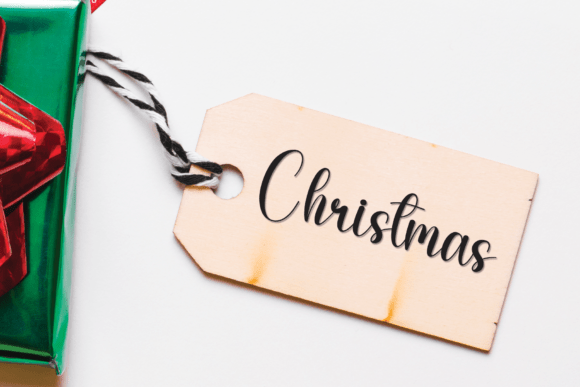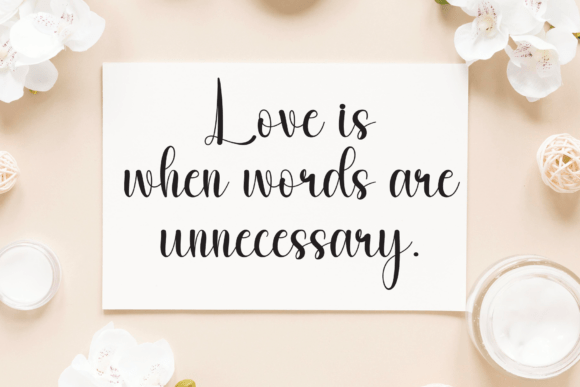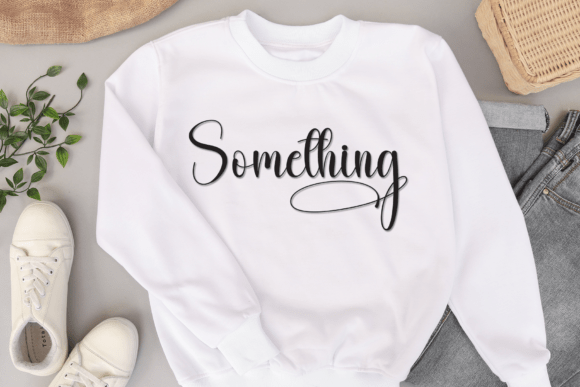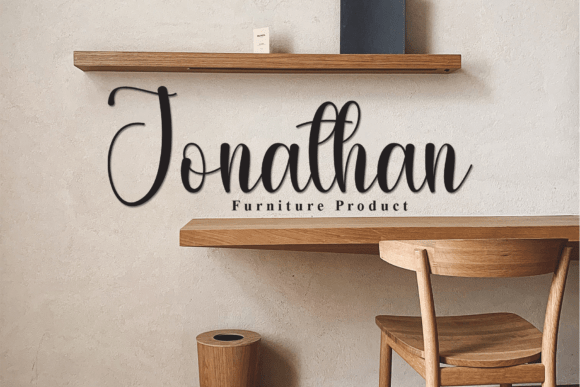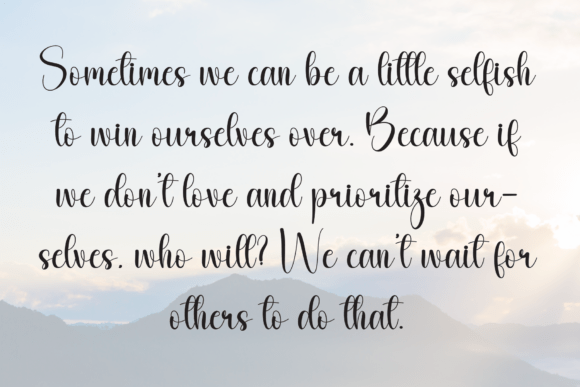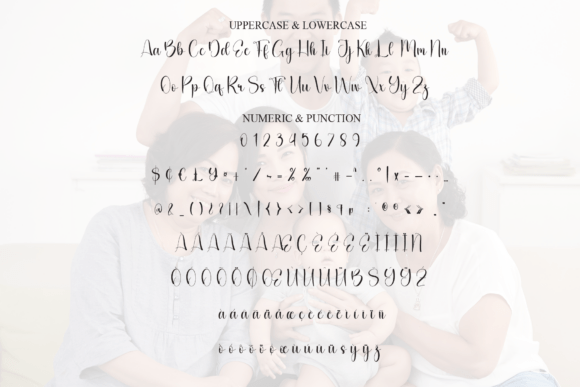
Introducing Family Font: The Ultimate Handwritten Display Font for Artisanal Elegance
Are you tired of using the same old fonts for your design projects? Look no further! We’re excited to introduce Family Font, an enchantingly delightful handwritten display font that embodies the bliss of artisanal elegance. With its joyous and playful allure, this font is perfect for bringing to life wedding invitations, greeting cards, or any design venture calling for a dash of fun and idiosyncratic flair.
The Perfect Blend of Elegance and Playfulness
Family Font is a masterfully crafted font that strikes the perfect balance between elegance and playfulness. Its hand-sketched characters exude a sense of joy and whimsy, making it ideal for designs that require a personal touch. Whether you’re a designer, crafter, or DIY enthusiast, this font is sure to become an indispensable tool in your creative arsenal.
What Makes Family Font So Special?
So, what sets Family Font apart from other fonts? Here are just a few reasons why this font is a cut above the rest:
• Unique Character Set: Each character in Family Font has been carefully hand-drawn to ensure a unique and distinctive look. The font’s character set includes a range of letters, numbers, and punctuation marks that are sure to add a touch of personality to your designs.
• Playful and Elegant: Family Font seamlessly blends playful and elegant elements to create a truly one-of-a-kind font. Its buoyant spirit breathes a special allure into every character, making it perfect for designs that require a dash of whimsy and sophistication.
• Versatile: Whether you’re designing wedding invitations, greeting cards, or social media graphics, Family Font is the perfect choice. Its versatility ensures that it can be used in a wide range of design projects, from formal to informal.
Use Cases for Family Font
So, how can you use Family Font in your design projects? Here are just a few ideas to get you started:
• Wedding Invitations: Add a touch of elegance and whimsy to your wedding invitations with Family Font. Its playful allure makes it perfect for wedding stationery, including save-the-date cards, thank-you notes, and more.
• Greeting Cards: Create one-of-a-kind greeting cards for birthdays, holidays, and special occasions with Family Font. Its hand-sketched characters add a personal touch that’s sure to make your cards stand out.
• Social Media Graphics: Use Family Font to add a dash of personality to your social media graphics. Whether you’re designing Facebook posts, Instagram stories, or Twitter headers, this font is sure to make your content more engaging and shareable.
Tips for Using Family Font
Here are a few tips for getting the most out of Family Font:
• Experiment with Colors: Family Font looks great in a range of colors, from bold and bright to soft and pastel. Experiment with different color combinations to find the perfect look for your design.
• Mix and Match: Don’t be afraid to mix and match Family Font with other fonts to create a unique look. Its playful allure pairs well with a range of font styles, from serif to sans-serif.
• Pay Attention to Kerning: As with any font, kerning is important to ensure that your text looks professional and polished. Take the time to adjust the kerning to achieve the perfect look.
In conclusion, Family Font is an enchantingly delightful handwritten display font that’s perfect for designers, crafters, and DIY enthusiasts. Its unique character set, playful and elegant design, and versatility make it an indispensable tool in any creative arsenal. Whether you’re designing wedding invitations, greeting cards, or social media graphics, Family Font is sure to bring a touch of artisanal elegance to your projects.